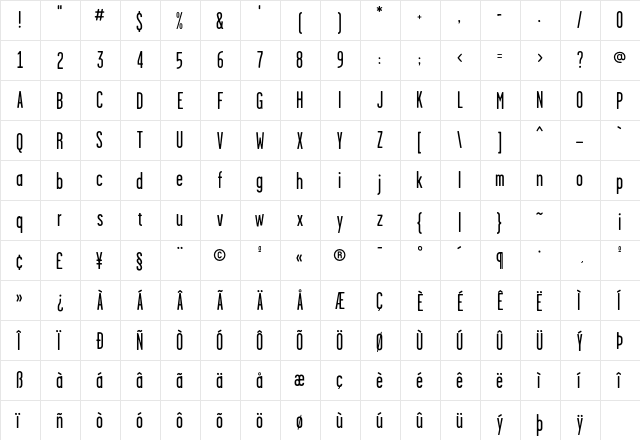
Garage Gothic FB Regular
Design Context for Garage Gothic FB Typeface
Garage Gothic FB takes a clean, functional approach — its unadorned letterforms prioritise legibility and work reliably across screen and print environments.
Font Pairing: Works well alongside a characterful serif or display font that can carry the expressive load while Garage Gothic FB handles the functional copy.
Pro Tip: Pair Garage Gothic FB with a display or serif font for headlines — its neutral character makes it an excellent supporting player in complex typographic systems.